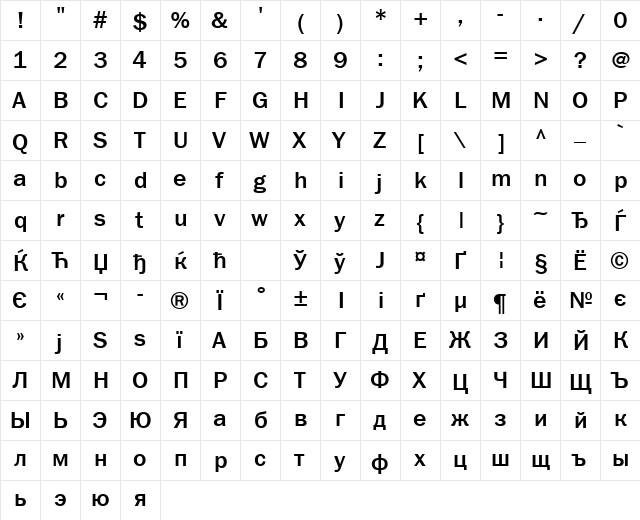
ft79 Regular
Design Context for ft79 Typeface
ft79 offers clean, dependable letterforms without strong stylistic allegiance, making it a practical choice for designers who need flexibility.